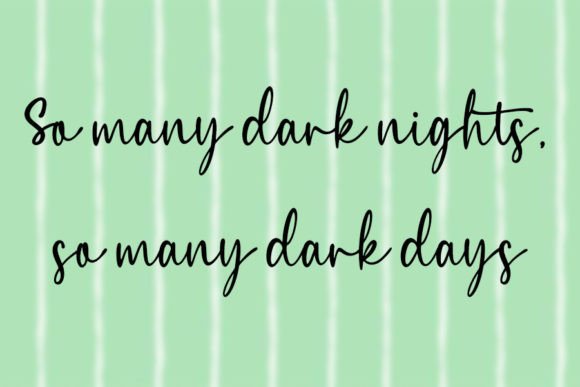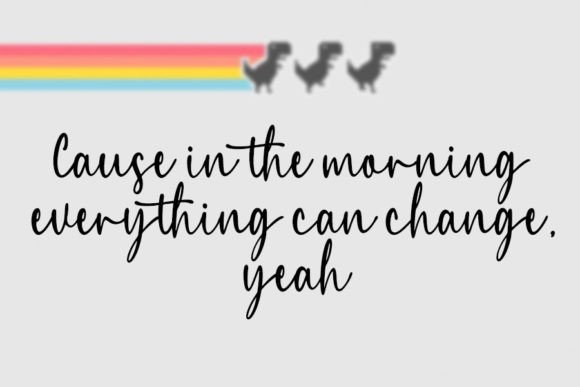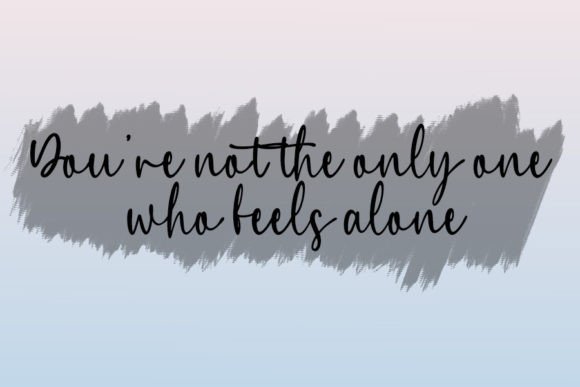
Introduction to Losaenato Font
Have you ever been stuck on a creative project, struggling to find the perfect font to bring your design to life? I know I have. It’s that moment when you’re searching through font collections, and suddenly, a beautiful script catches your eye. For me, that moment happened when I stumbled upon the Losaenato Font. Its elegant curves and sharp edges immediately caught my attention, and I knew I had to learn more.
Losaenato Font is more than just a pretty face – it’s a high-quality design resource that can elevate your creative projects. With its transparent background, you can easily combine it with other design elements to create stunning visual effects. Whether you’re working on a branding project, a wedding invitation, or a social media graphic, this font is sure to impress. And the best part? It’s available for free download, making it an accessible resource for designers of all levels.
Key Features of Losaenato Font
- High-quality design resource with a unique and elegant style, perfect for creative projects.
- Includes a transparent background, allowing for easy integration into various design elements.
- Features a clean and minimalist design, making it ideal for use in logos, typography, and other creative applications.
- High-resolution design, available in 300 DPI, ensuring crisp and clear visuals.
- Perfect for designers and artists working on high-quality design projects, including branding, advertising, and editorial content.
Honest Review: Losaenato Font
As a designer, I’m always on the lookout for high-quality design resources that can elevate my creative projects. Recently, I stumbled upon the Losaenato Font, and I’m excited to share my honest review with you.
- ✨ Unique and stylish design: The Losaenato Font has a distinctive look that sets it apart from other fonts in its category.
- ✨ Transparent background: The font has a transparent background, allowing for easy customization and integration into various design elements.
However, I do have some reservations:
- ⚠️ Limited font weights: The Losaenato Font only comes in a few font weights, which may limit its versatility in certain design projects.
Overall, I’m impressed with the Losaenato Font’s unique design and free download option. While it has some limitations, it’s a great addition to any designer’s toolkit, especially for creative projects that require a stylish and eye-catching font.
Tips for Getting the Most Out of Losaenato Font
To get the most out of Losaenato Font, experiment with different font sizes, colors, and combinations to create unique and eye-catching designs. You can also use it in conjunction with other design elements, such as images or graphics, to add depth and interest to your creative project.
Common Use Cases for Losaenato Font
Losaenato Font is ideal for a variety of creative projects, including logos, social media graphics, presentations, documents, and web design. Its high-quality design and transparent background make it a versatile and practical design resource.